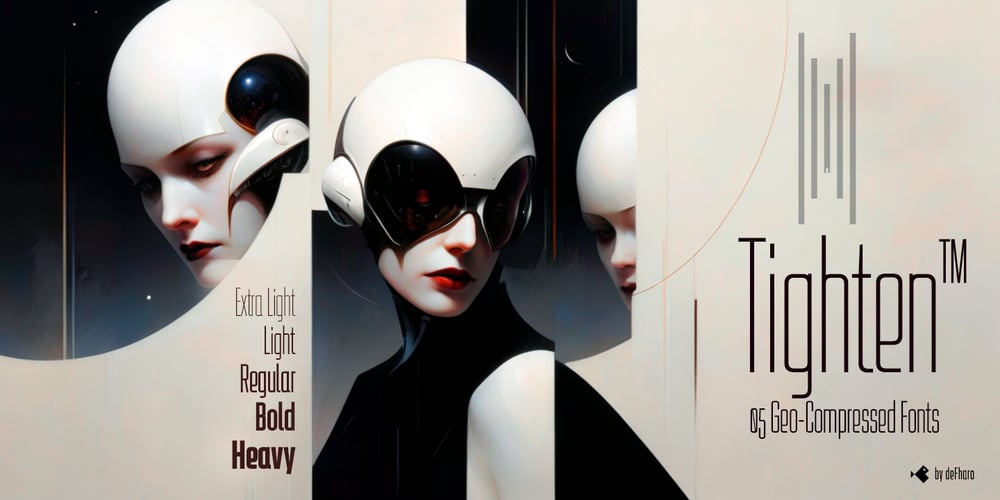
Tighten Font Family was designed by Fernando Haro and published by deFharo. Tighten contains 5 styles and family package options. Tighten: The Ultimate Compressed Sans Serif TypefaceTighten is a compressed sans serif typeface family, notable for its elegance derived from an exaggerated vertical proportion. Its style is a fusion of Art Deco and Futurism, giving it a distinctive and highly readable presence in any medium. Designed specifically for those seeking to stand out in graphic design, brand creation, publishing, videos, and editorial design, Tighten emphasizes consistency, functionality, and distinction.• Tighten’s versatility makes it perfect for a variety of applications, including: Composing Publications, Designing Brochures, Creating Logos, Product Packaging, Signage, Corporate Image, Cinematic Texts, etc.Its ability to economize horizontal space without losing presence makes it an ideal choice for projects requiring clear and effective graphic differentiation.• Unique Features of Tighten- Five Weights: Extra Light, Light, Regular, Bold, and Heavy, each carefully calibrated for maximum versatility and adaptability.- Complete Sets of Characters: Two complete sets of uppercase and lowercase letters, alternative characters, ligatures, and various sets of numbers.- Multilingual Compatibility: Compatible with Latin Extended-A, making it perfect for multilingual applications.- Compressed Proportion: Ideal for spaces where horizontal saving is essential without sacrificing visual impact.- Advanced OpenType Features: Dynamic fractions, mathematical symbols, Bitcoin symbol, and other currency signs.• Precision and Technical ExcellenceTighten’s precision is not only visual but also technical. Its proportions, metrics, and kerning are meticulously defined through golden ratio sequences, ensuring maximum readability and optimal usage in any size or application.